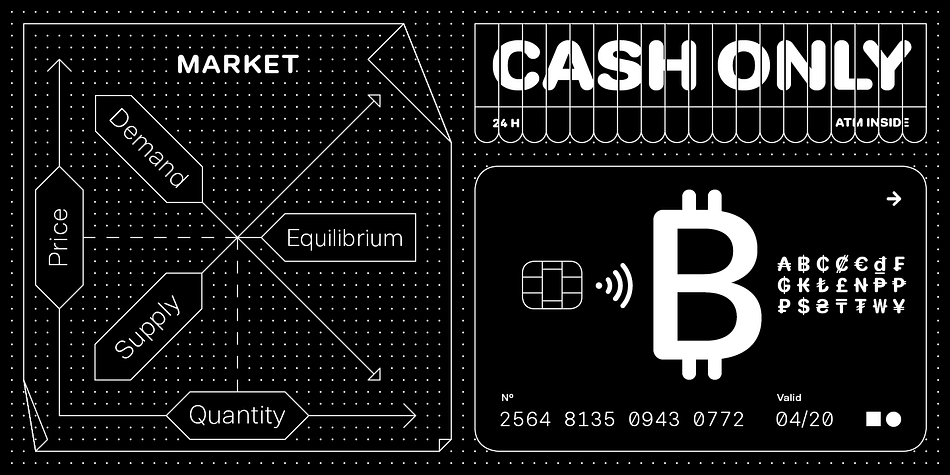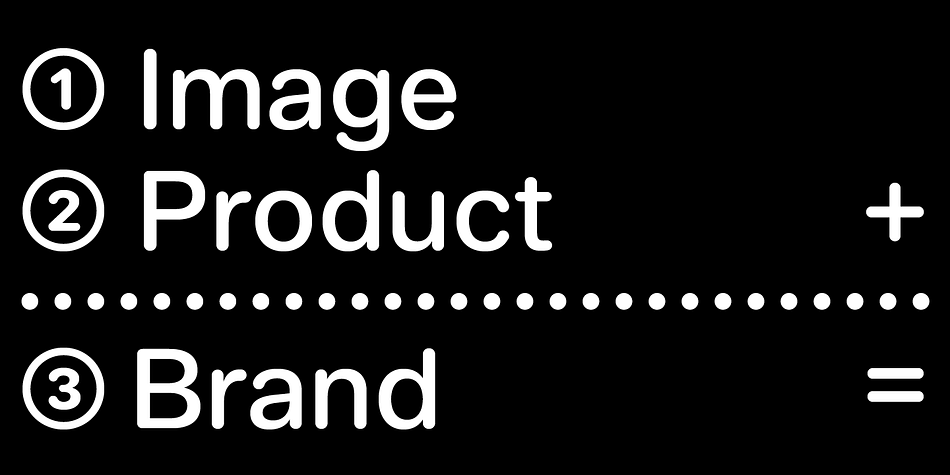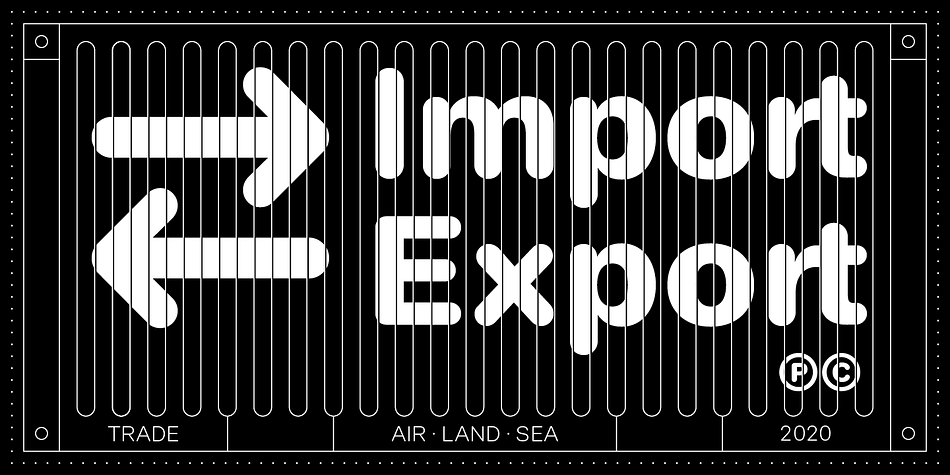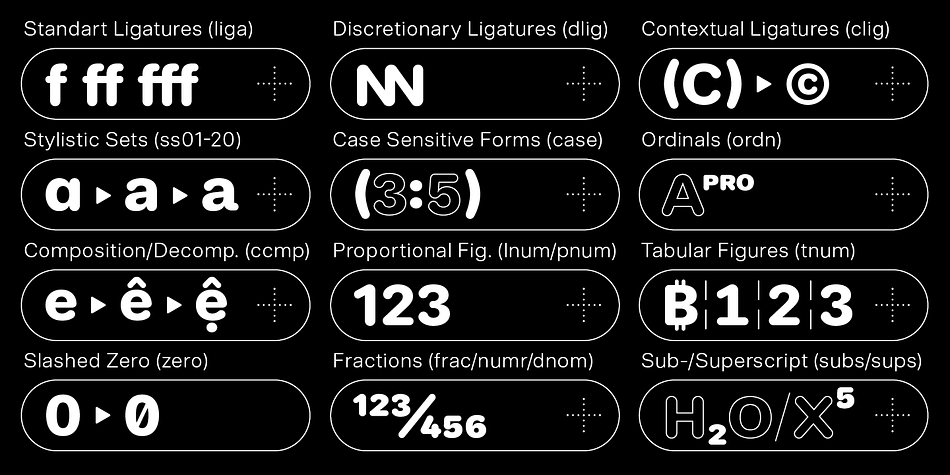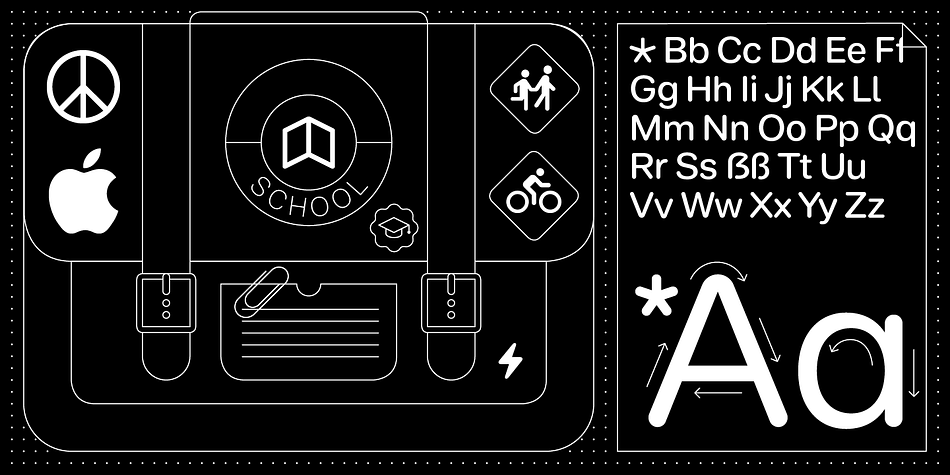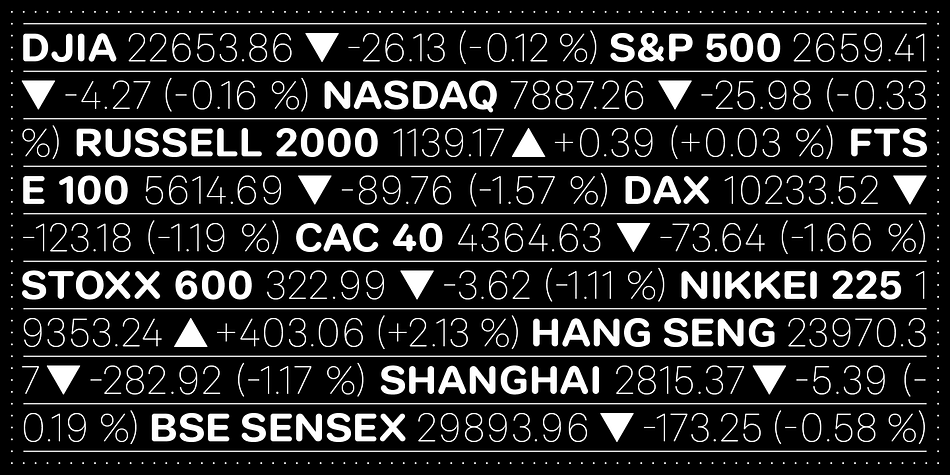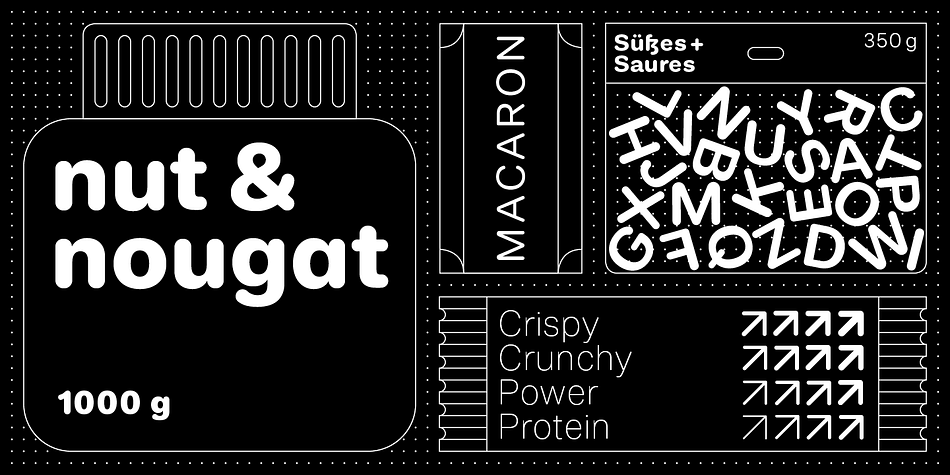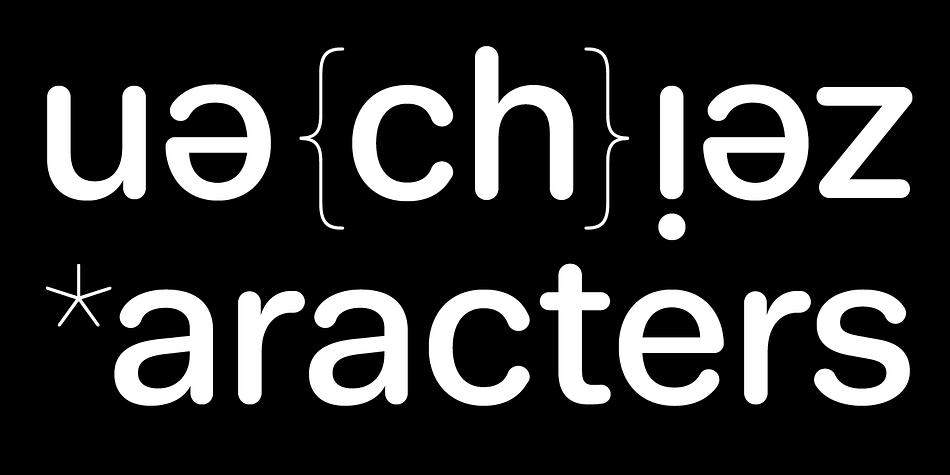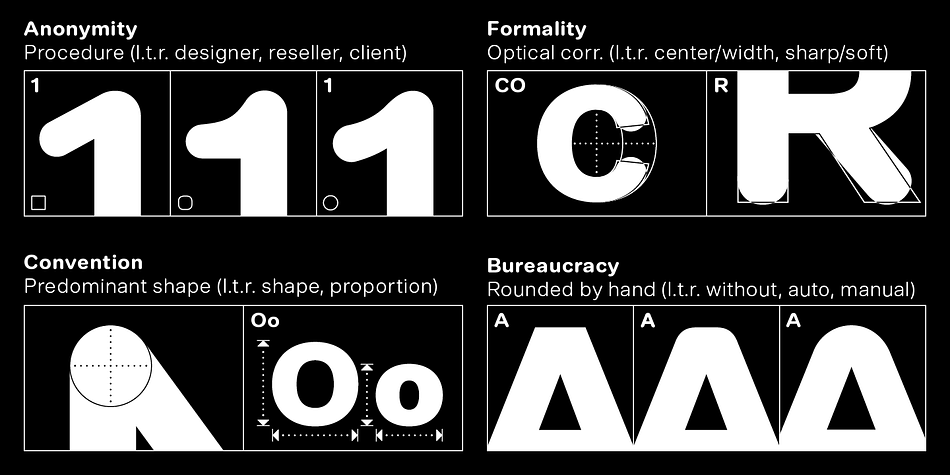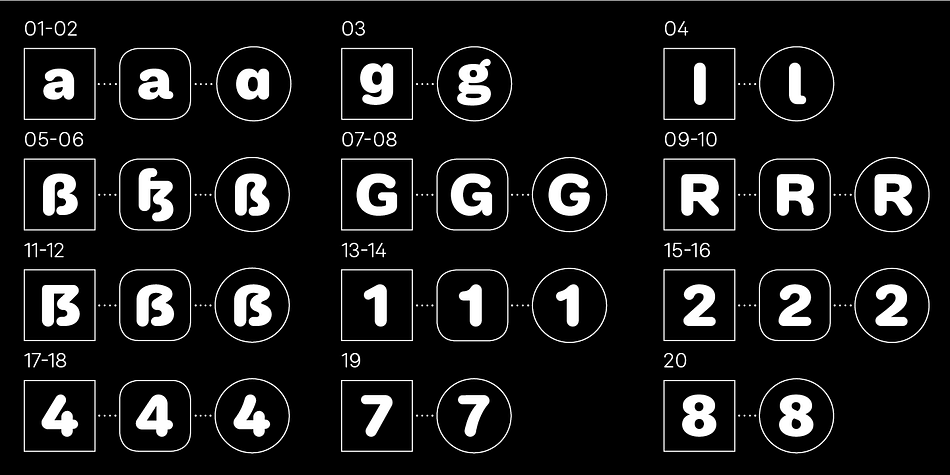
BB Anonym™ (Pro) is a sans serif font family. This typeface has seventeen styles and was published by Bold Studio.
BB Anonym™ (Std/Pro) is based on the research and realizations of the BB Noname™ Typeface and complements the font family with a rounded version. The idea and design are based on the principle of outsourcing and encryption: an intermediate step in the design process and production is inserted: “Designer, reseller, client”.
The process is not visible to the end user, but it affects the visual result. Compared to the sharp version, the font looks simpler and the craft and technical requirements are more complex.
● 3 Variants: designer, retailer, client
● 20 Stylistic-sets
● 17 Styles
● 39 Opentype features